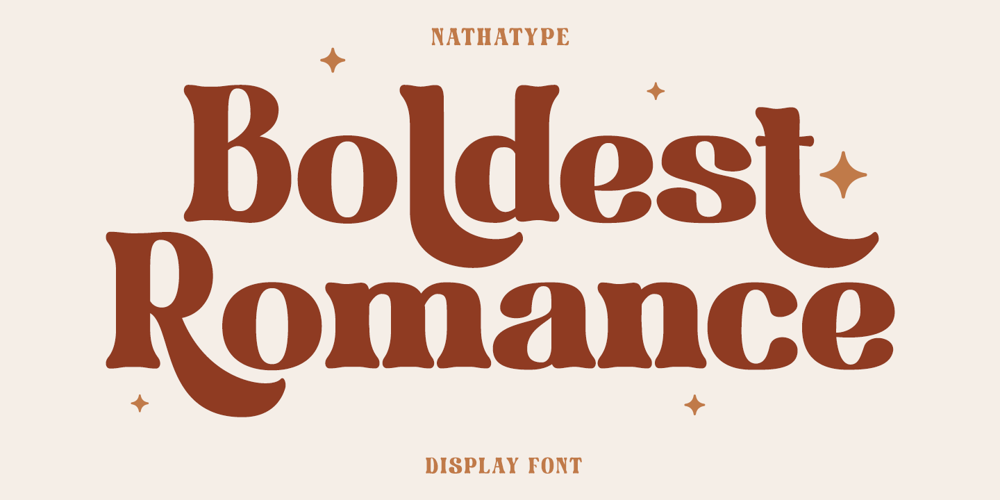
Boldest Romance
Boldest Romance font
Boldest Romance Font Family was designed by Donis Miftahudin and published by Nathatype. Boldest Romance contains 1 styles and family package options. If you are looking for an aesthetically fun, legible font, Boldest Romance is the perfect choice. It is a thickly designed weight display font to be legible and beautiful at the same time. This is perfect to apply for serious, formal contents as it gives a strong impression. Furthermore, this legible font has regular structures easing readers to recognize every letter correctly. You can also enjoy interesting features available here.Features: Alternates Ligatures Multilingual Supports PUA Encoded Numerals and Punctuations Boldest Romance fits best for various design projects, such as brandings, posters, banners, logos, magazine covers, quotes, headings, printed products, greeting cards, merchandise, social media, etc. Find out more ways to use this font by taking a look at the font preview.Thanks for purchasing our fonts. Hopefully, you have a great time using our font. Feel free to contact us anytime for further information or when you have trouble with the font. Thanks a lot and happy designing.